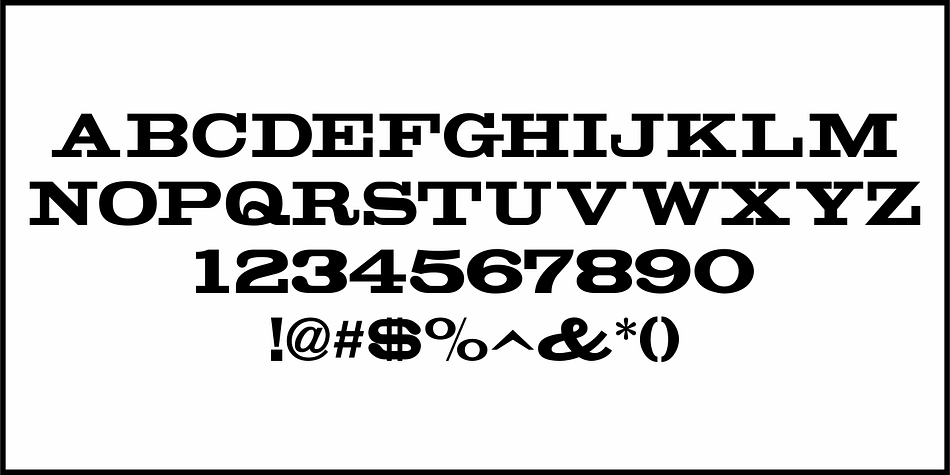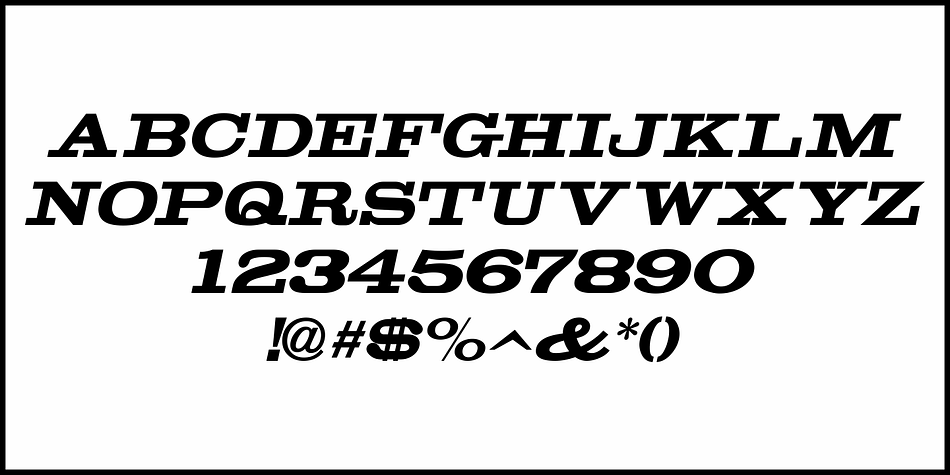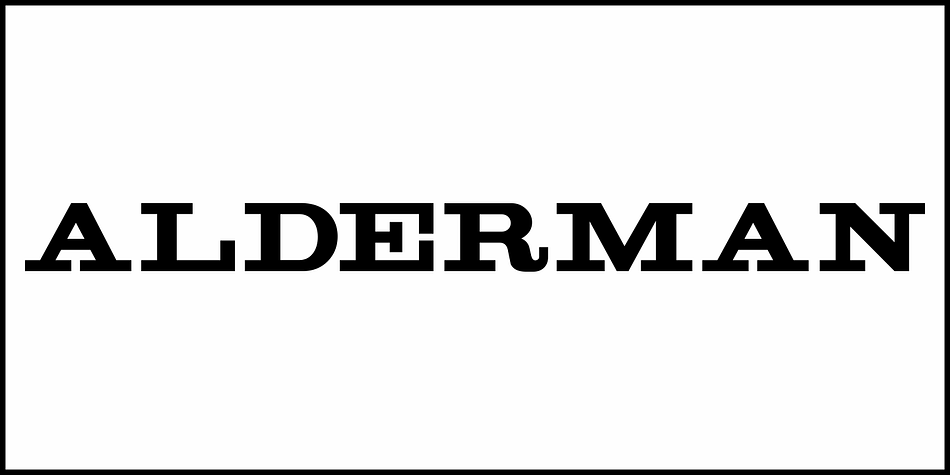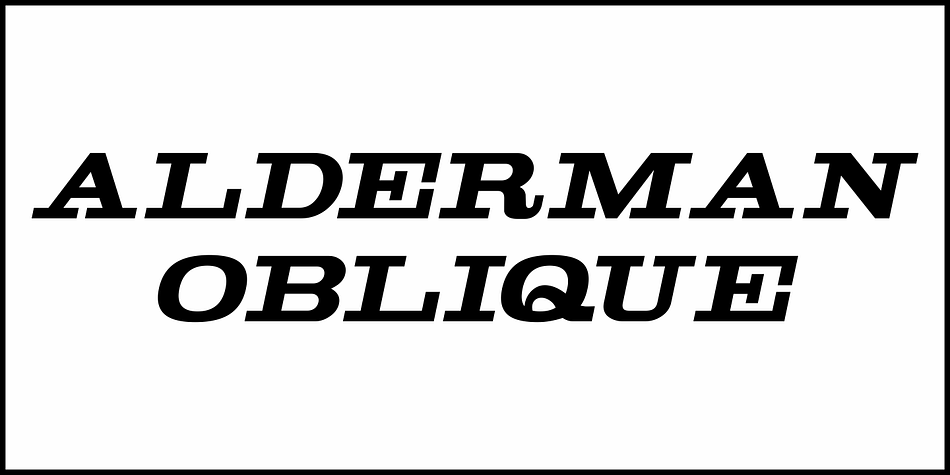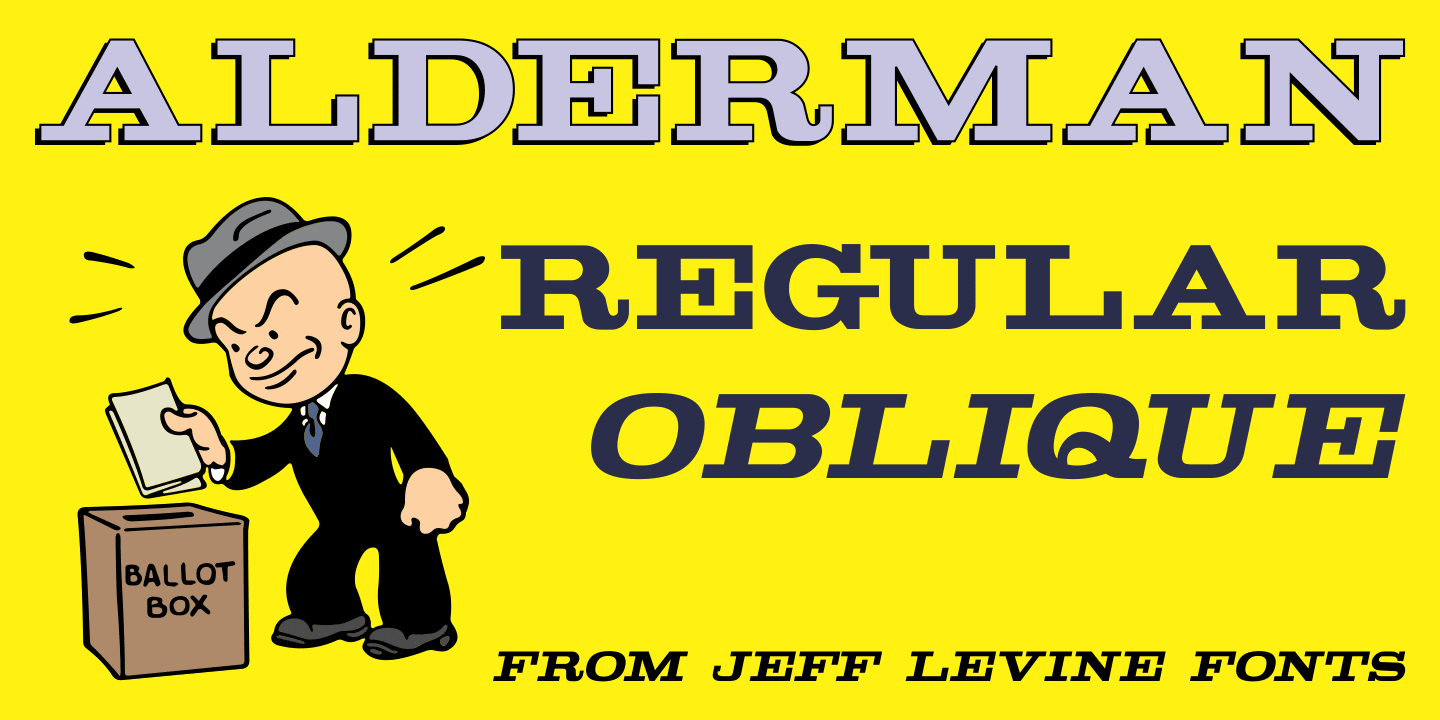
ALDERMAN JNL
Designed by Jeff Levine, Alderman JNL is a multiple classification font family. This typeface has two styles and was published by Jeff Levine Fonts.
Alderman JNL is a wide slab serif typeface based on the classic wood type Antique Light Face Extended, and is available in both regular and oblique versions.